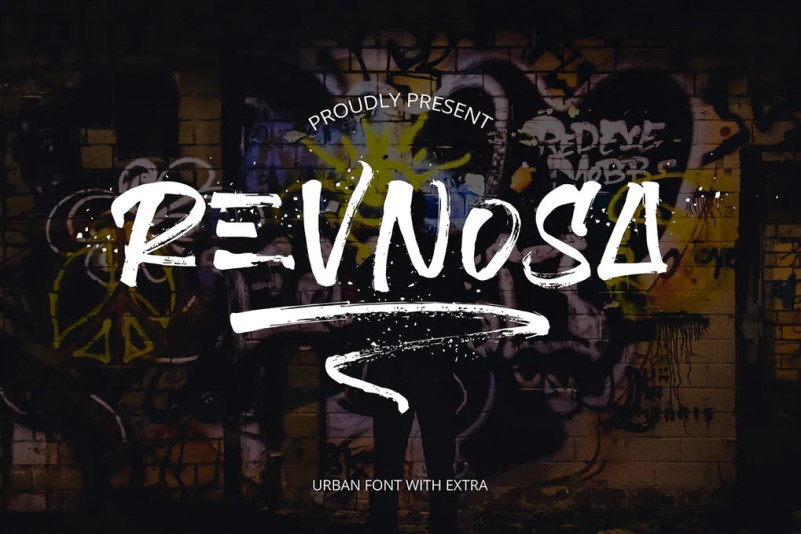
Revnosa Font
Rustic font, handwritten with personal charm. With quick drying strokes and an urban style. Revnosa font is perfect for display projects such as quoted text, product name, t-shirt, street-style style, product packaging and much more. It is also perfect for superimposing elegant text on any background image.